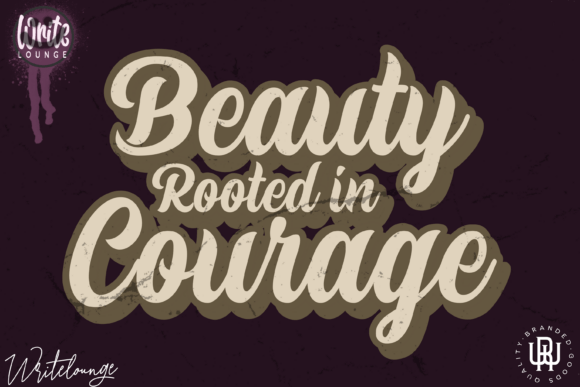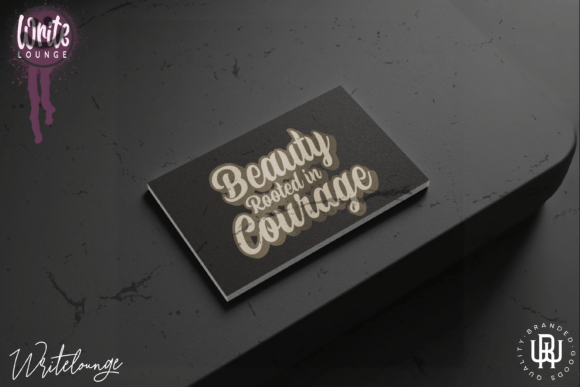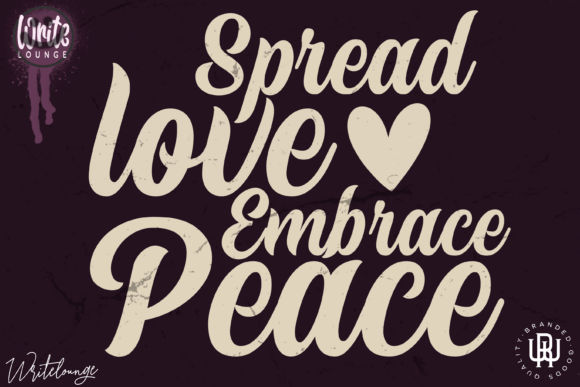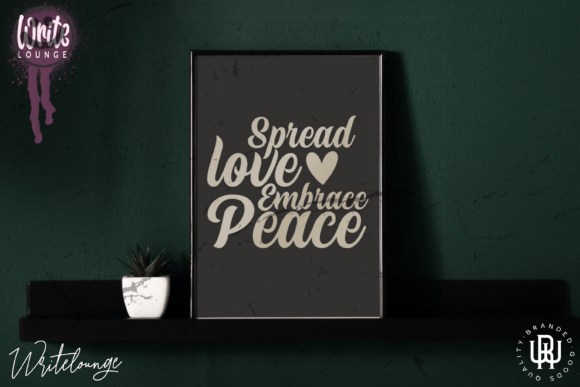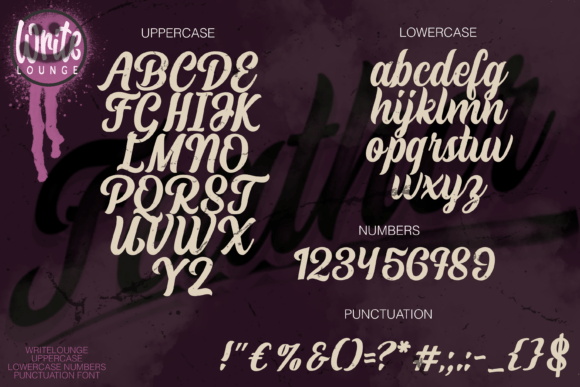
Introduction to Feather Font
Feather is a smooth and expressive brush script font designed to bring warmth, emotion, and effortless charm to your creative projects.
With soft curves, natural letter flow, and modern handwritten character, Feather blends a retro spirit with a fresh contemporary feel Perfect for uplifting quotes, lifestyle branding, social media content, apparel prints, product packaging, stickers, planners, and greeting cards, Feather offers a clean yet personality-rich script style that stays elegant and readable at any size.
Key Features of Feather Font